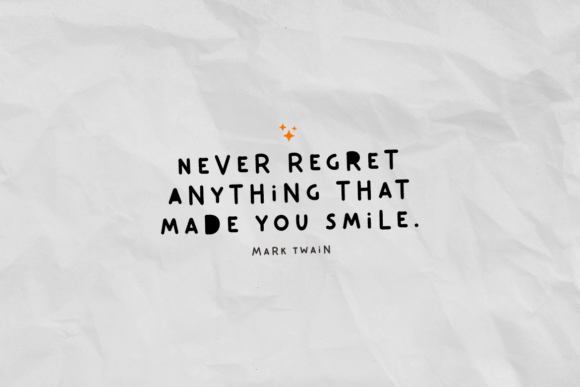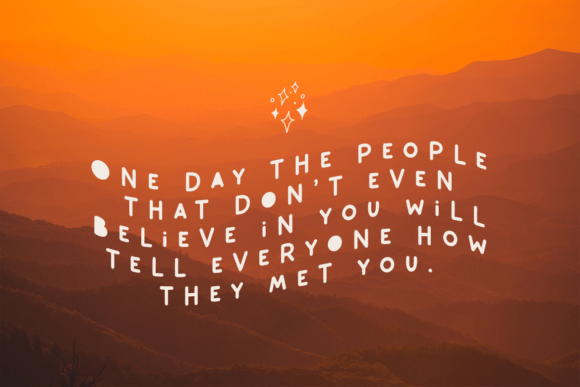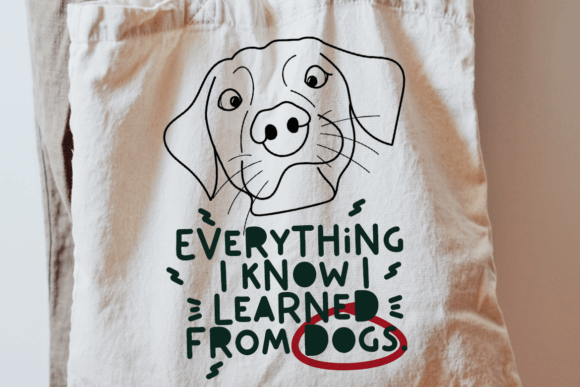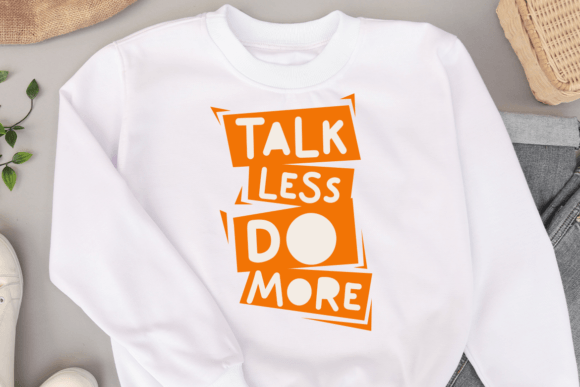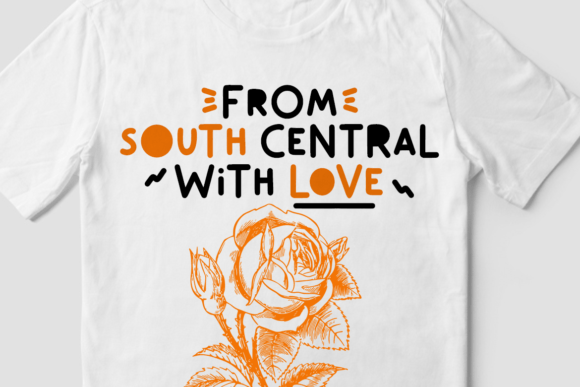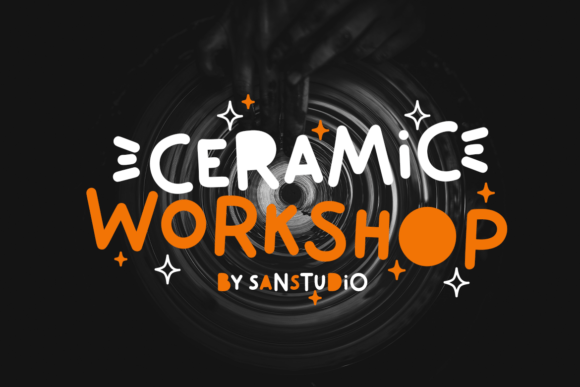
Unleash Your Creativity with Bakso Gerobak Font
Have you ever stared at a blank canvas, feeling stuck and unsure of where to begin? The blank page can be intimidating, but it’s also a blank slate waiting for your creative touch. This is where the perfect font can make all the difference.
Enter Bakso Gerobak Font, a versatile and playful display font designed to elevate your creative projects. Whether you’re crafting a birthday card, designing a social media campaign, or creating a stunning visual display, Bakso Gerobak Font is the perfect addition to give your work a clean and exquisite feel. With its wide range of applications, this font is a valuable asset for designers looking to add a touch of personality to their work.
So why settle for a generic font when you can make a statement with Bakso Gerobak Font? Add it to your creative arsenal and watch your projects come to life with a touch of elegance and whimsy.
Bakso Gerobak Font Key Features
- Font Family: Bakso Gerobak, a unique and creative font designed for various applications.
- Unique Characteristics: Features a playful and whimsical design, with exaggerated curves and lines, making it perfect for creative projects and branding.
- Character Set: Includes a comprehensive set of characters, including Latin, Cyrillic, and Greek alphabets, as well as punctuation marks and symbols.
I recently had the chance to work with the Bakso Gerobak font, and I’m excited to share my honest thoughts with you. Here’s what I think works well:
- ✨ Unique and playful design: The font has a fun, casual vibe that’s perfect for creative projects or branding that needs a touch of personality.
- ✨ Good legibility: Despite its quirky design, Bakso Gerobak is still easy to read, making it a great choice for body text or headings.
- ✨ Wide language support: The font includes a wide range of languages, including Latin, Cyrillic, and Devanagari scripts.
- ⚠️ Limited font sizes: Bakso Gerobak works best at smaller font sizes, but it can become too ornate and difficult to read at larger sizes.
- ⚠️ Not suitable for formal projects: While the font is great for creative projects, it may not be the best choice for formal documents, presentations, or websites.
Overall, I think Bakso Gerobak is a fun and versatile font that’s perfect for projects that need a bit of personality. Just be mindful of its limitations and use it in the right context. With that said, I’m excited to see how this font can add some creativity to your next project!
To get the most out of Bakso Gerobak Font, use it for:
- Food-related designs, such as restaurant menus or food blogs.
- Asian-inspired designs, such as traditional clothing or cultural events.
- Custom graphics, logos, or typography for businesses or personal projects.